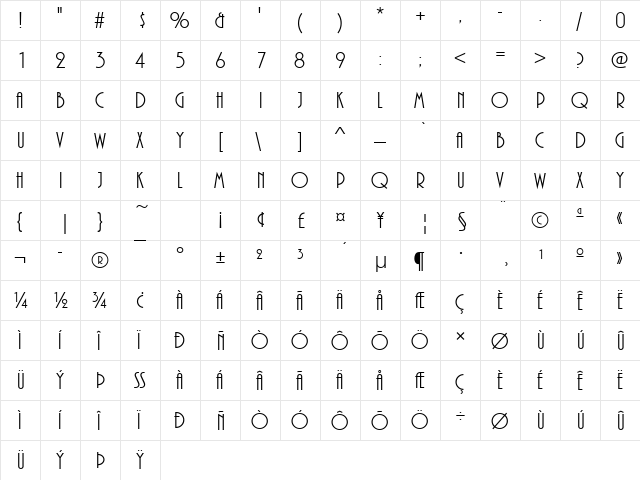
PlazaDReg Regular
Design Context for PlazaDReg Typeface
PlazaDReg is a composed and adaptable typeface that performs quietly and consistently across a wide range of design contexts.